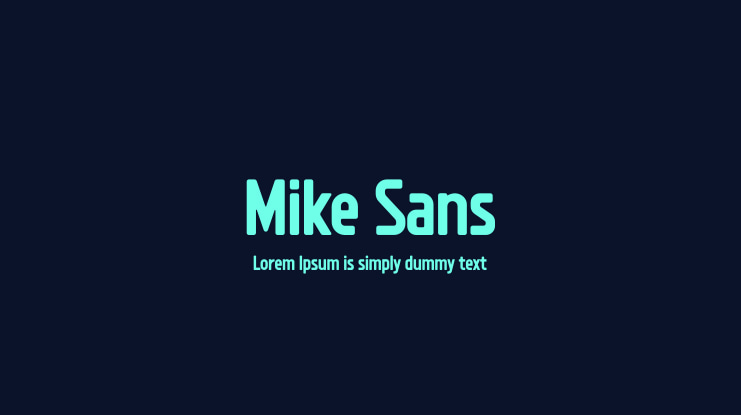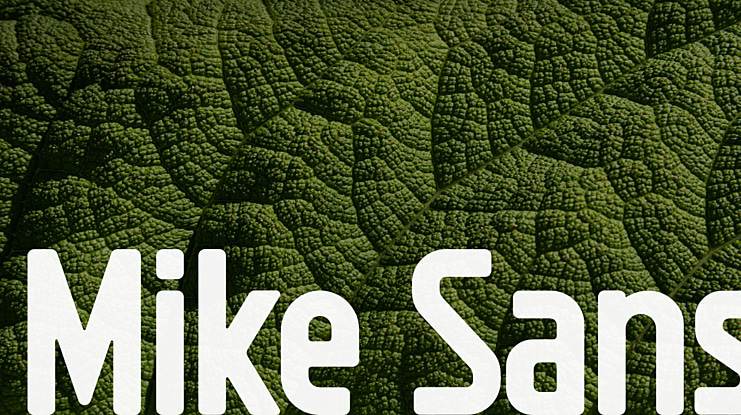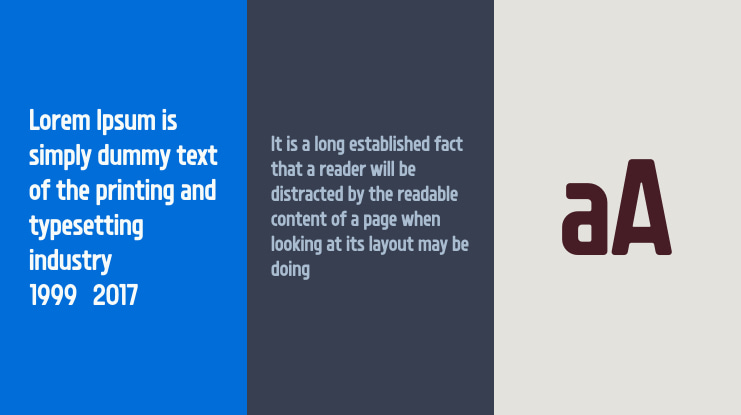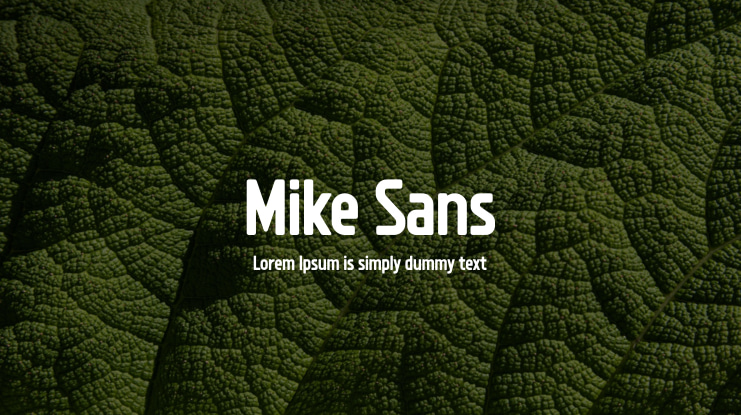
Mike Sans Font
Download Mike Sans, a modern sans-serif font featuring a square style. Its design offers clean and modern glyphs that create versatile options for any display use. It’s free to download. Don’t miss out on the chance to elevate your design game with Mike Sans.
- 8 Weights
- Basic Latin A-Z and a-z
- Numerals & Punctuation
- Multilingual Support for ä ö ü Ä Ö Ü …